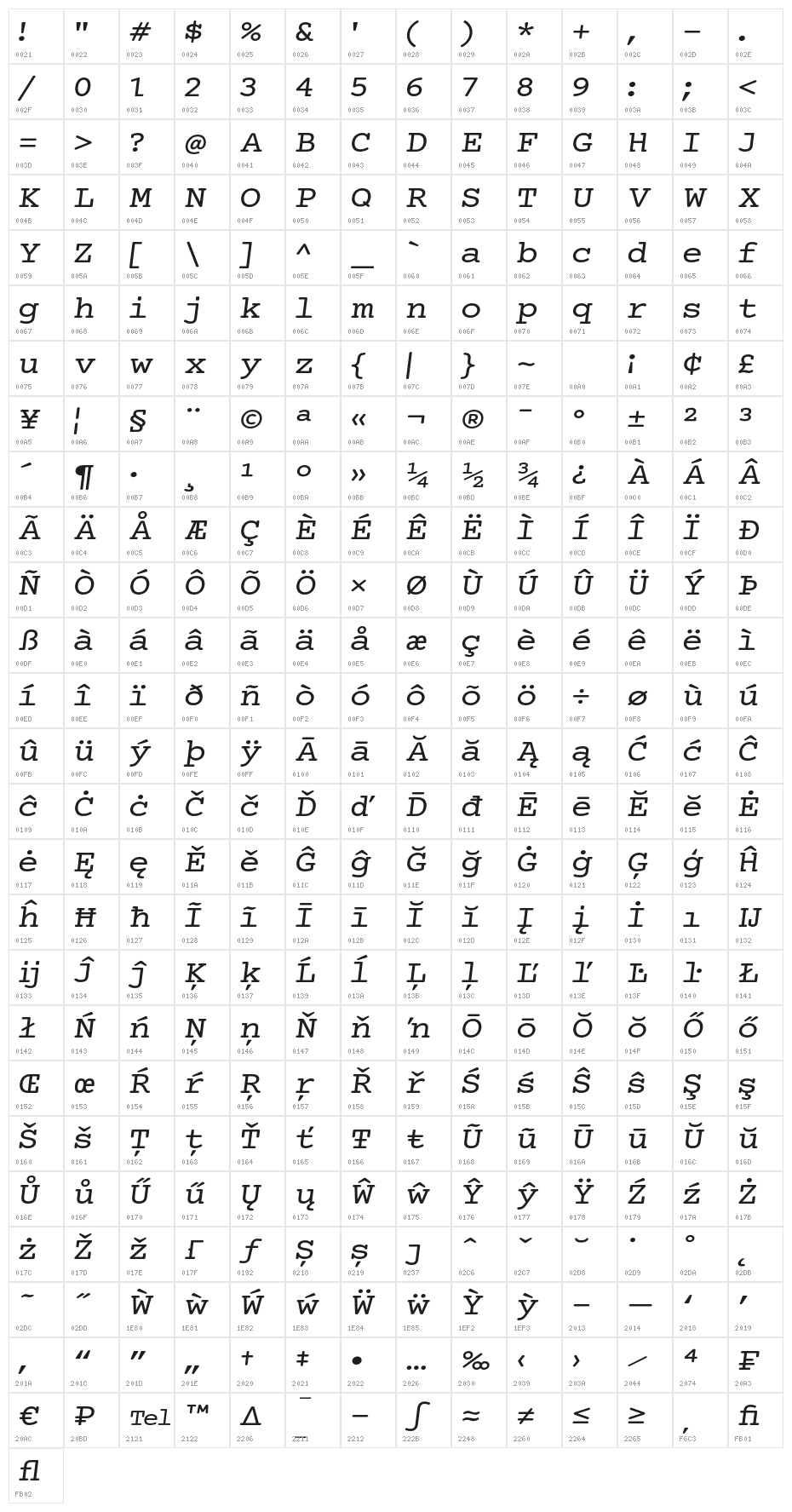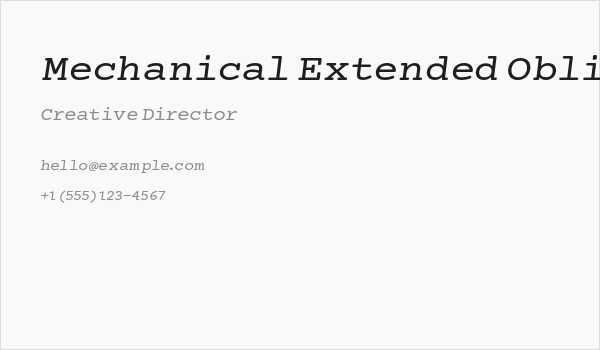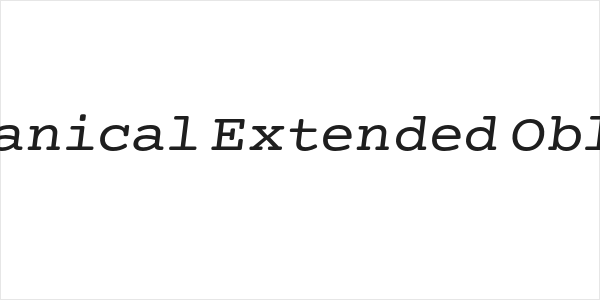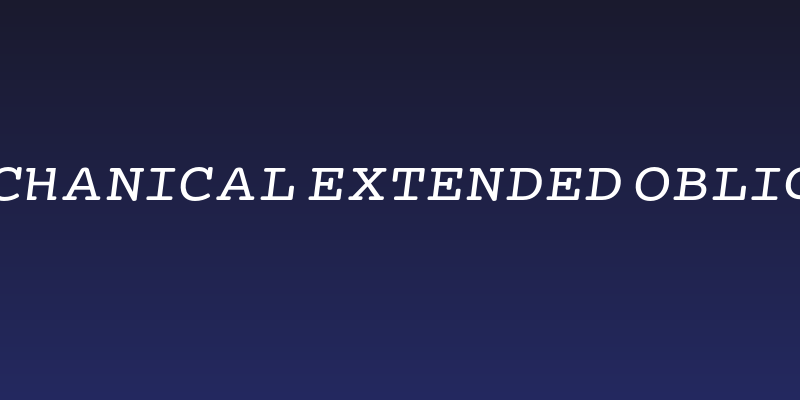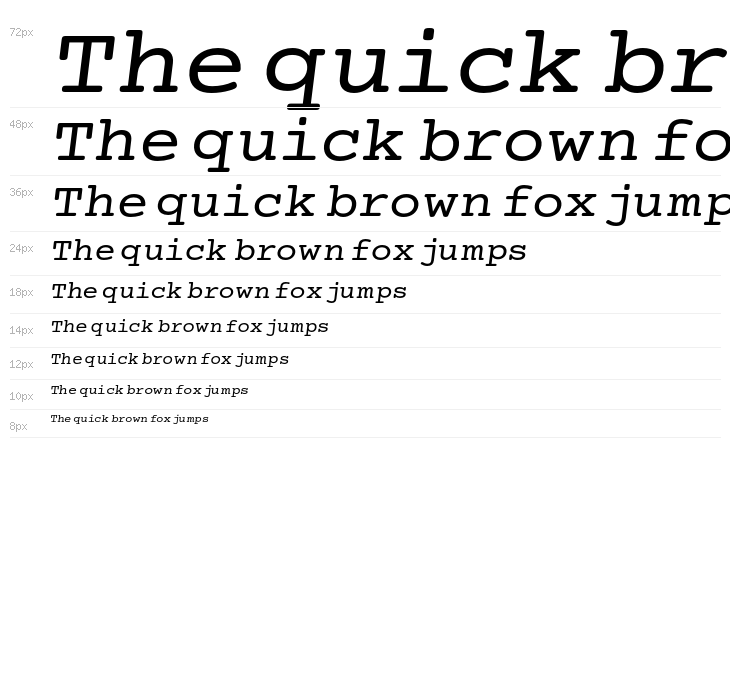
Mechanical Extended Oblique Font
Mechanical Extended Oblique Description
This font features a distinctive oblique style with extended characters, giving it a mechanical and industrial feel. The uppercase letters are bold and prominent, while the lowercase letters maintain a consistent slant, adding a dynamic flow to the text. The numerals are clear and easily readable, making them suitable for technical or mechanical contexts. Special characters are well-defined, maintaining the overall aesthetic of the font. The combination of bold strokes and extended width gives it a unique presence, ideal for making a strong visual impact.
| Use Case | Headlines, Logos, Technical documents |
| Proposed Projects | Ideal for technical manuals, industrial branding, or any project requiring a strong, mechanical aesthetic. |